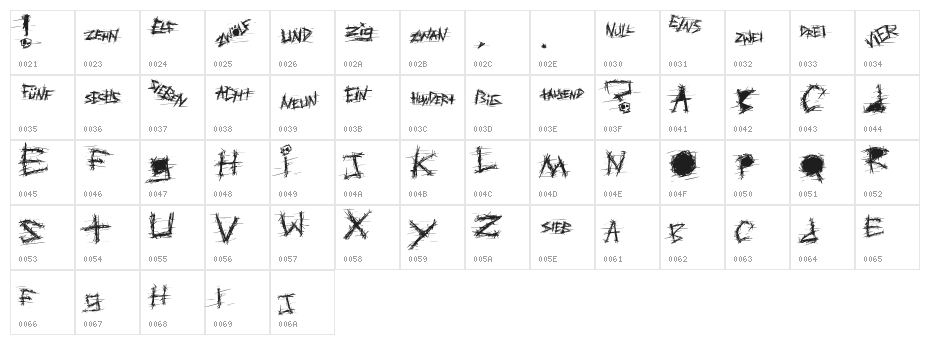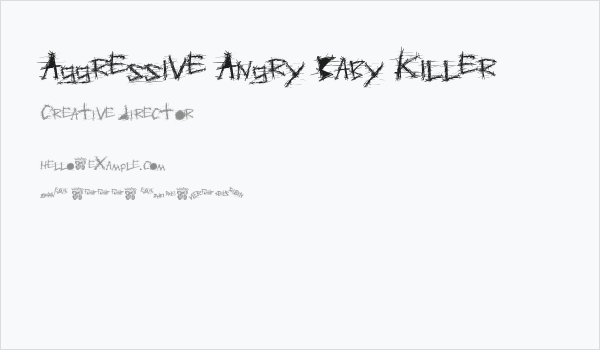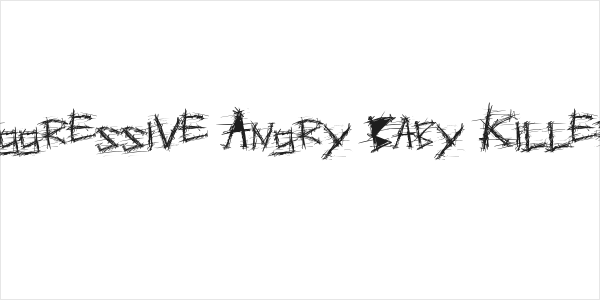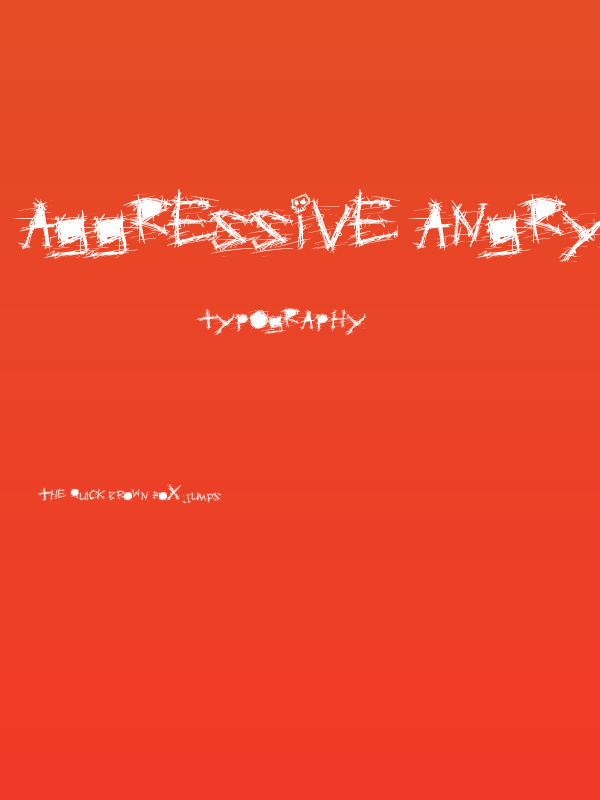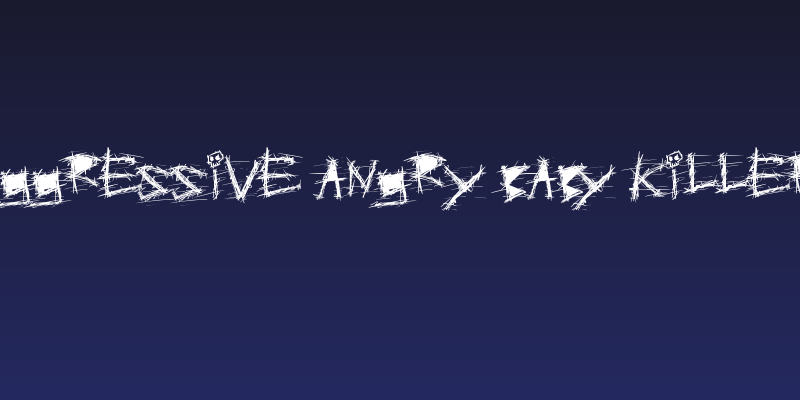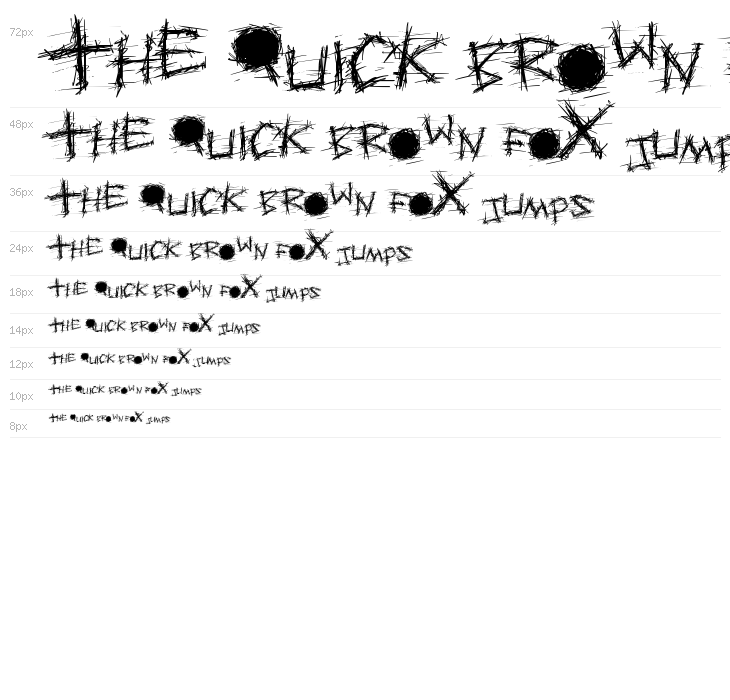
Aggressive Angry Baby Killer Font
Aggressive Angry Baby Killer Description
This font is characterized by its chaotic and aggressive appearance, with letters that appear to be scratched or clawed into the surface. The strokes are jagged and uneven, giving it a raw and edgy feel. Each character is uniquely distorted, adding to the overall sense of disorder and intensity. The font conveys a sense of rebellion and nonconformity, making it ideal for projects that require a bold and unconventional aesthetic. Its rough texture and irregular shapes make it stand out, capturing attention with its distinct style. The font is suitable for creative projects that aim to evoke strong emotions or convey a sense of urgency and intensity.
Overall StyleAggressive, Edgy, Rebellious
Use CaseLogos, Posters, Headlines
Proposed ProjectsAlbum covers, horror movie posters, extreme sports branding, edgy fashion labels.